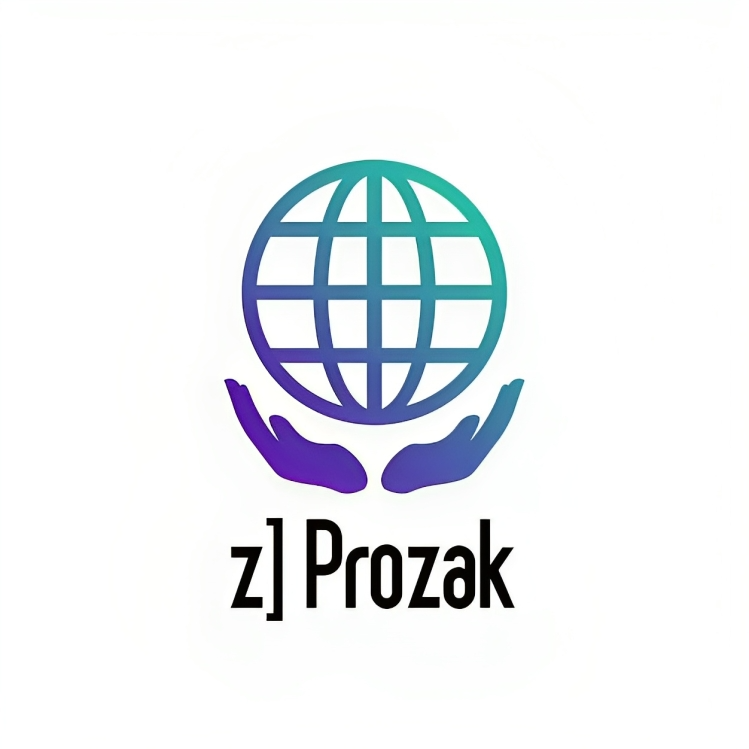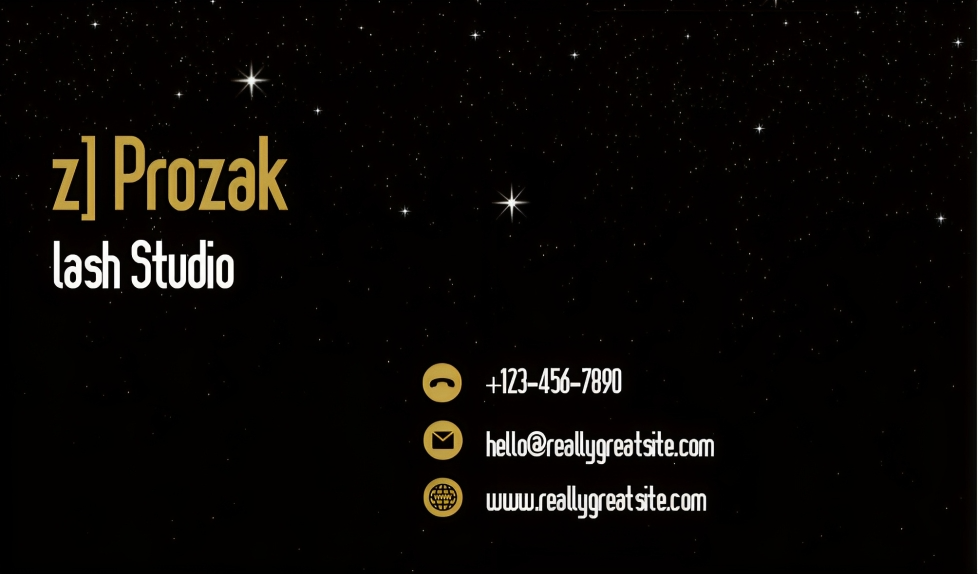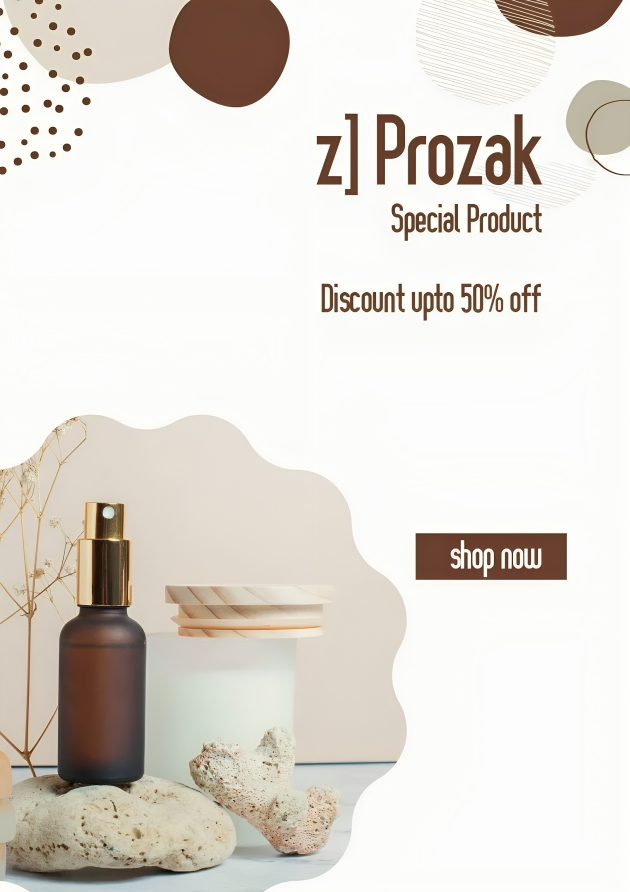
z] Prozak font is ideal for adding a touch of fun to your design projects. It belongs to the Regular font subfamily. The font was created by the talented team at studio Kmzero and is available for personal use at no cost.